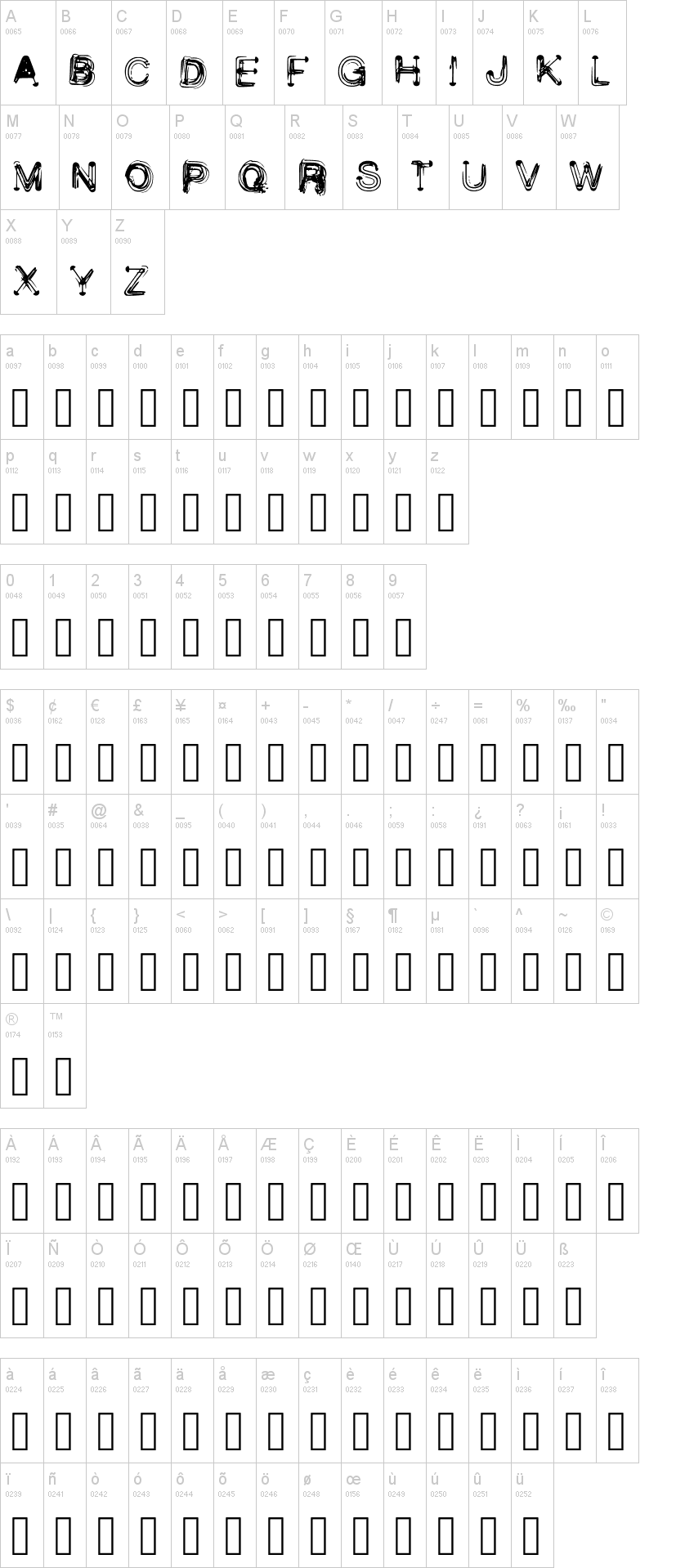
Note of the authorWant to make a splash but without the fuss or sticky paint, well here is Wet Brush. This is a DEMO version only and has only the UPPERCASE letters.